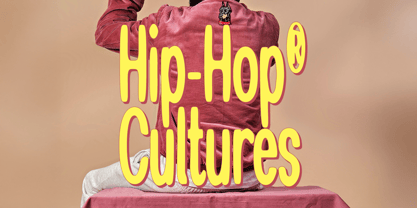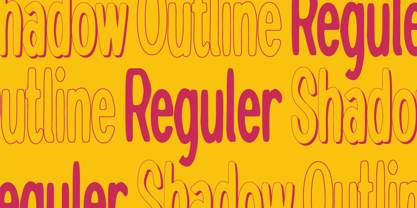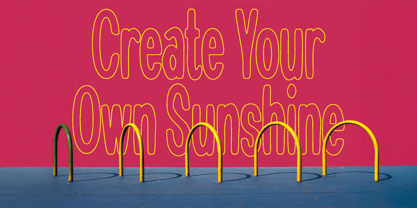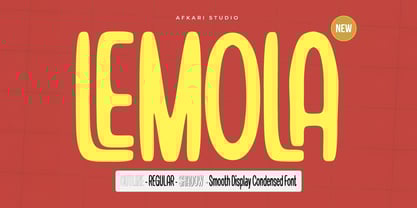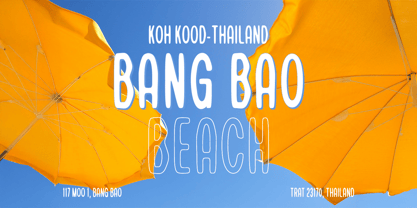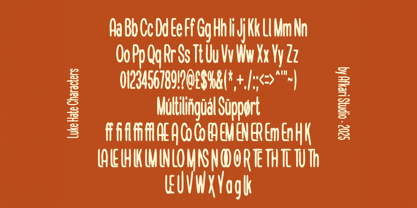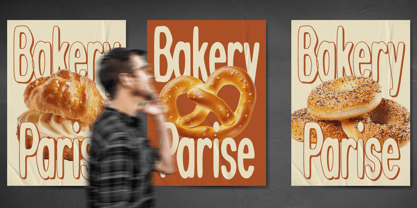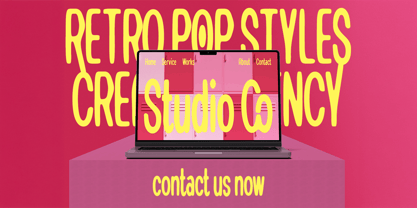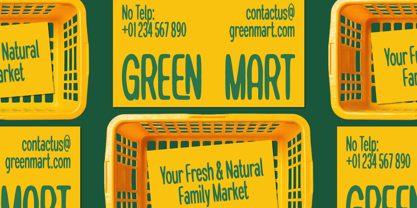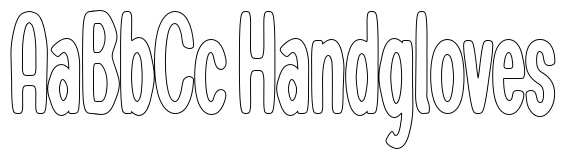
Lemola
Lemola - Smooth Display Condensed Font
Lemola – Smooth Display Condensed Font is a bold, stylish, and modern typeface designed to stand out in any creative project. With its clean lines, narrow form, and smooth edges, Lemola brings a sleek and expressive vibe that’s perfect for attention-grabbing headlines, branding, music covers, and more.
What makes Lemola extra versatile is its 3 unique styles:
1. Regular – clean and solid, perfect for bold typographic layouts
2. Outline – for a cool, minimal, and contemporary aesthetic
3. Shadow – adds depth and retro flair with layered dimension
Features;
- Uppercase, Lowercase, Number, and Punctuation
- Special Alternates and ligatures
Whether you're working on a modern brand, poster, or editorial piece, Lemola adds personality without sacrificing readability. It’s bold, smooth, and made to leave an impression.